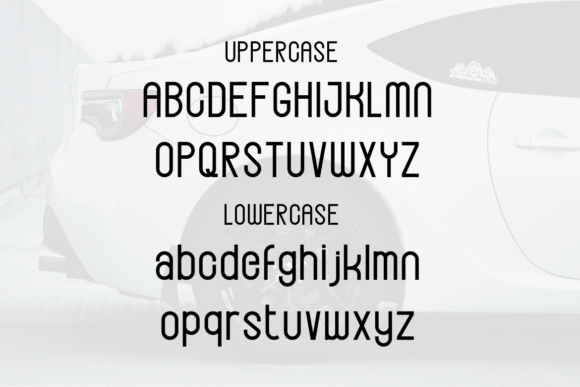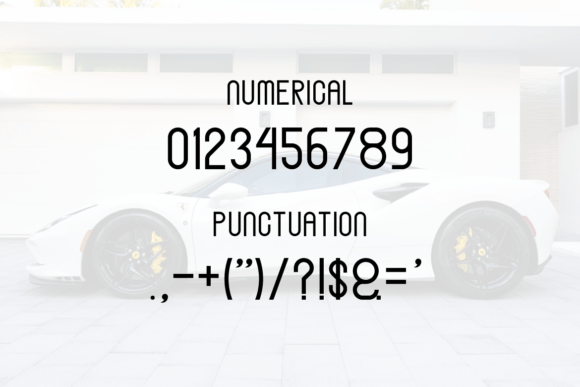
Introduction to Immo Font
Immo is a modern and artistic sans serif font designed to break conventions while maintaining clarity and function.
With unexpected shapes, dynamic proportions, and subtle quirks, Immo brings a bold creative edge to logos, branding, posters, packaging, and editorial layouts that crave originality .
Key Features of Immo Font